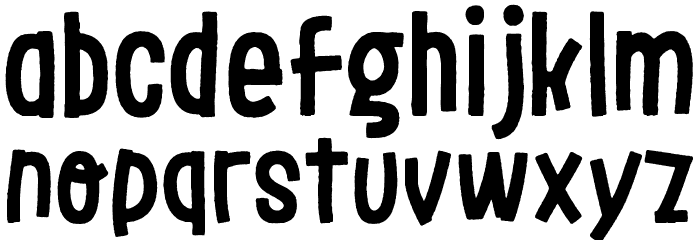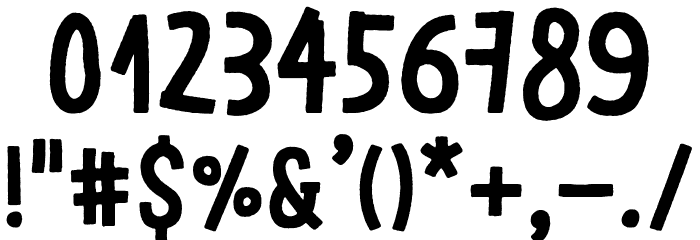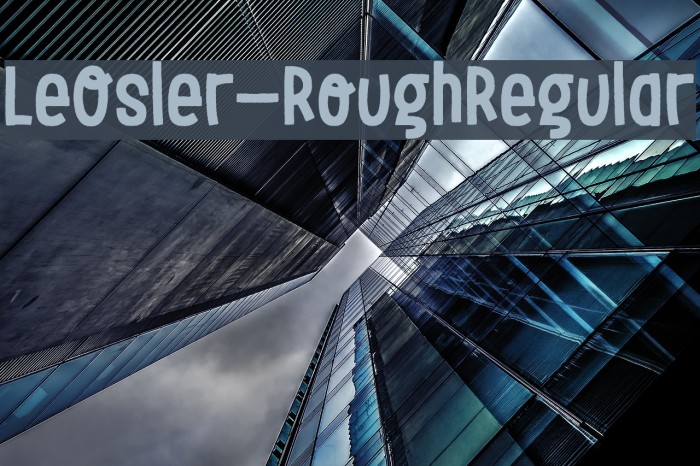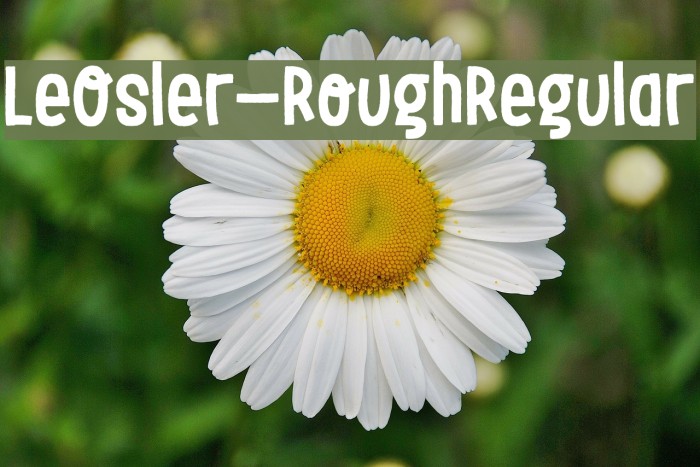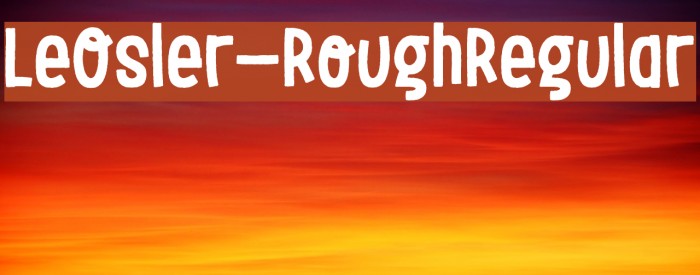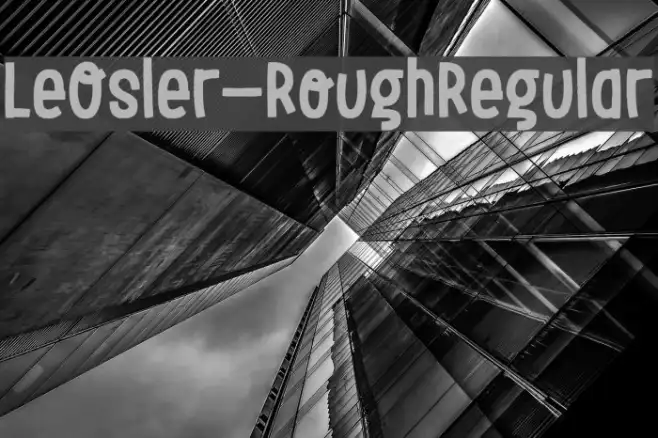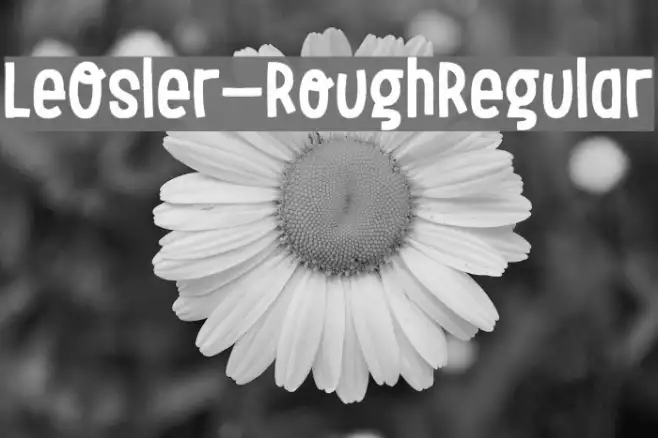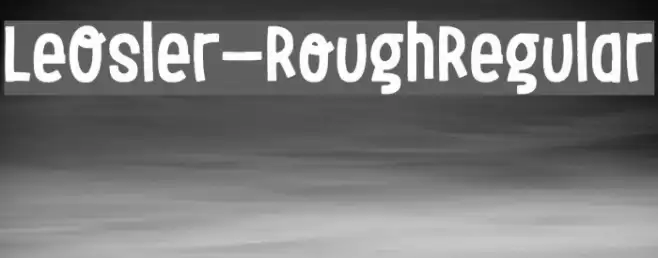
LeOsler-RoughRegular Font
This font features a bold, hand-drawn style with a rough, textured appearance that gives it a playful and informal look. The characters are slightly irregular, adding to the handcrafted feel. The uppercase and lowercase letters maintain a consistent style, with rounded edges and a slightly uneven baseline, enhancing its casual aesthetic. The numerals and special characters follow the same design principles, ensuring a cohesive look across all glyphs. This font's unique charm makes it suitable for projects that require a touch of whimsy and creativity.
A bold, hand-drawn font with a rough, textured style and playful character.
- Proposed Projects: Ideal for children's books, playful branding, casual posters, and creative invitations.